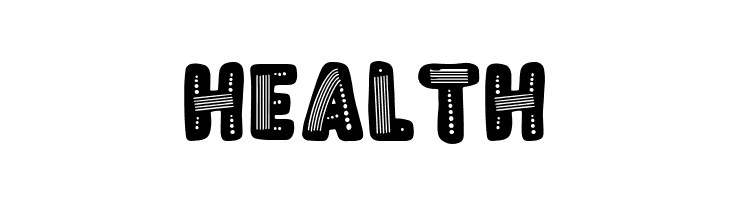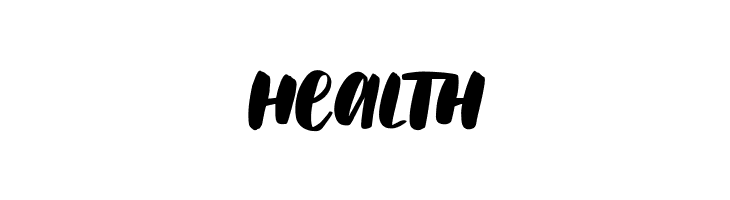
A bold, handwritten-style font with thick strokes and smooth curves.
A bold, decorative font with rounded terminals and a vintage railway-inspired style.
A dynamic, modern font with elongated, slanted characters and consistent stroke width.
A playful, decorative font with bold, textured characters featuring lines and dots.
A classic serif font with elegant curves and a refined, timeless appearance.
A classic serif font with elegant, elongated serifs and balanced proportions.